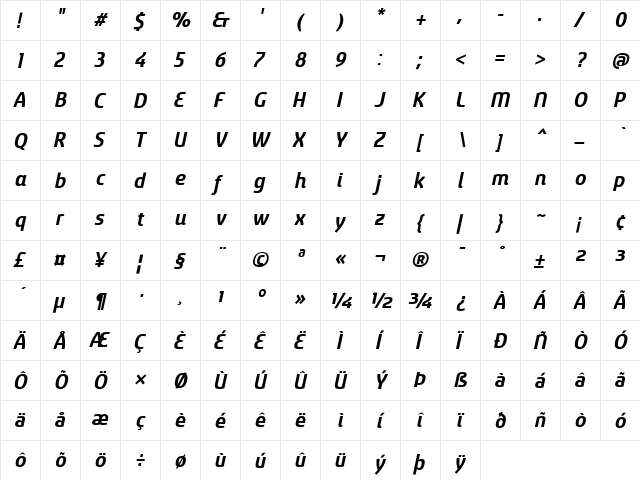
Sancoale Bold Italic
Design Context for Sancoale Typeface
Sancoale takes a measured approach to typography — its balanced proportions and neutral character make it a reliable workhorse for both digital and print work. The dynamic lean of this cut emphasises speed and emphasis in any layout. The heavy weight commands attention and anchors typographic hierarchies.
Pro Tip: Use Sancoale for emphasis, pull quotes, and subheadings where its slanted energy can add rhythm to the layout.